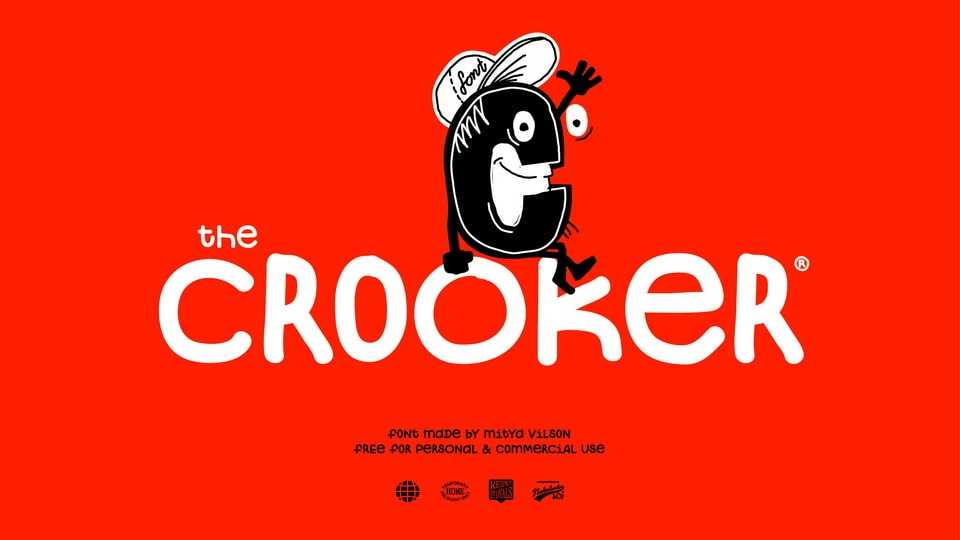
Download The Crooker font, a handwritten typeface that emerged from the signatures for sketches and whatnot. It’s kind of a rebranding of the illustrious Comic Sans.
Designer: Mitya Vilson